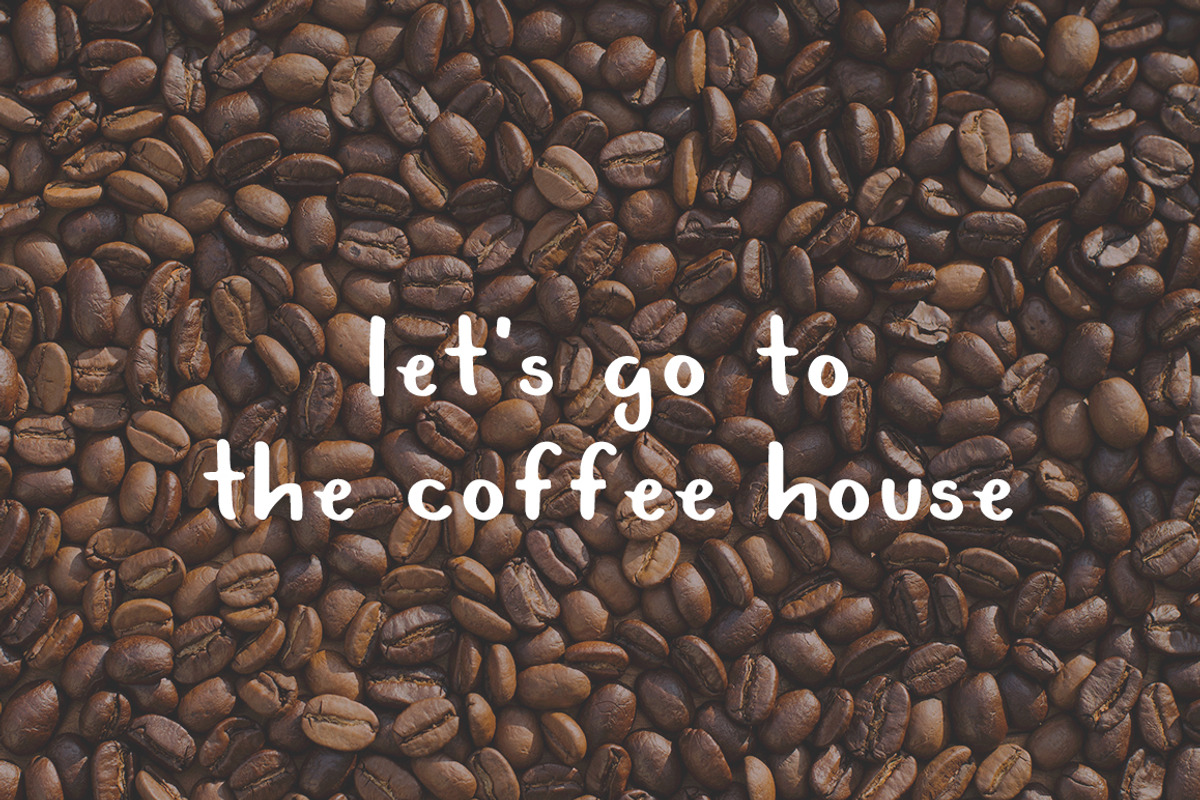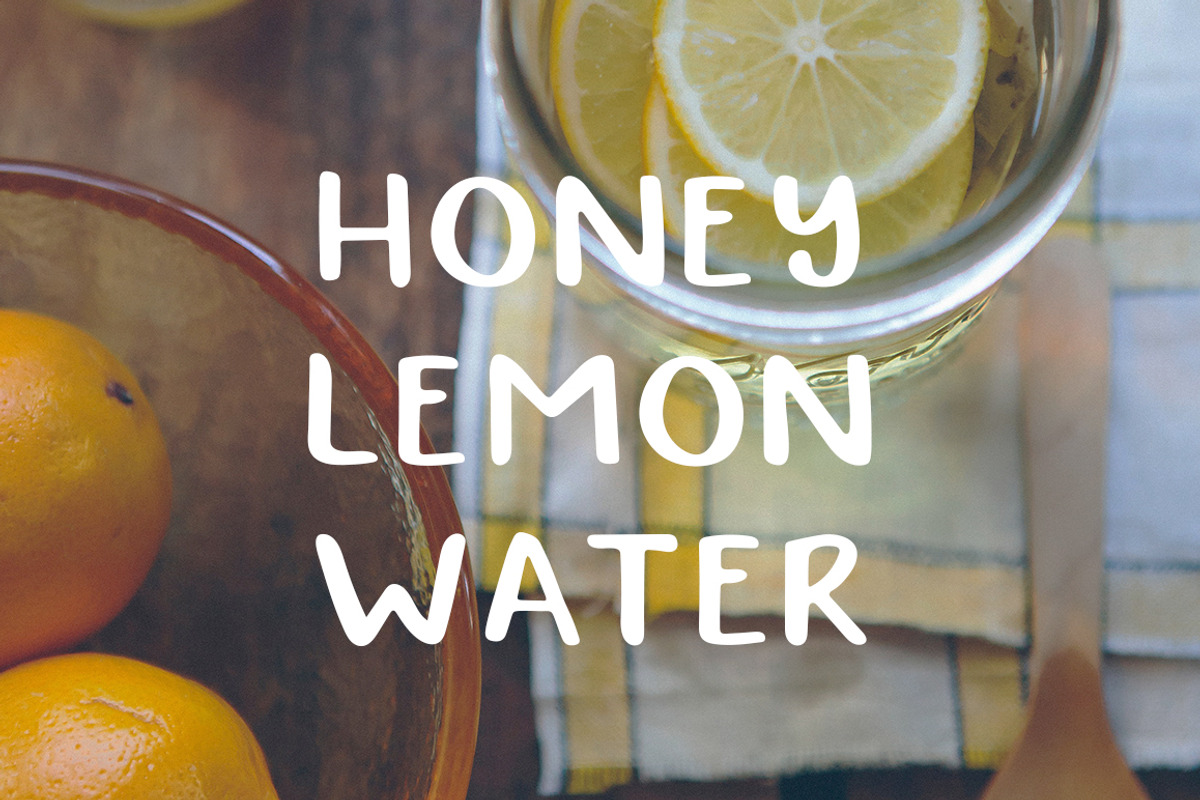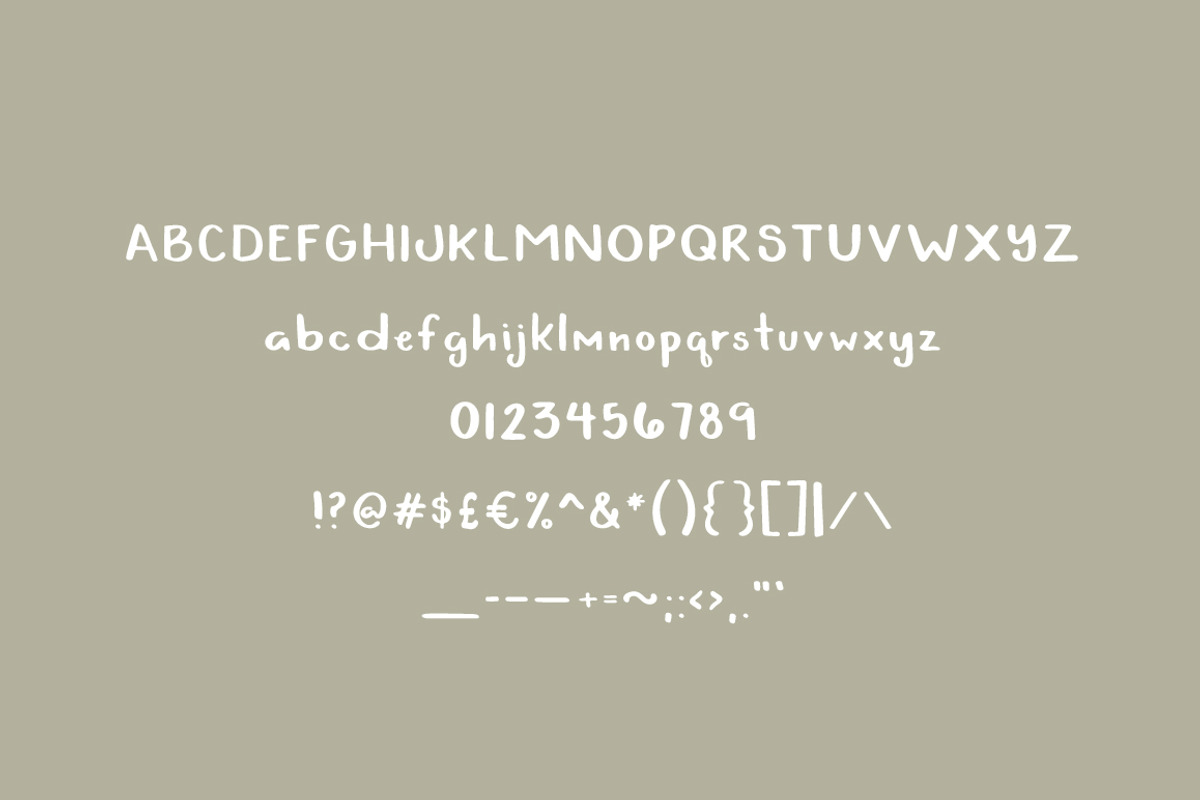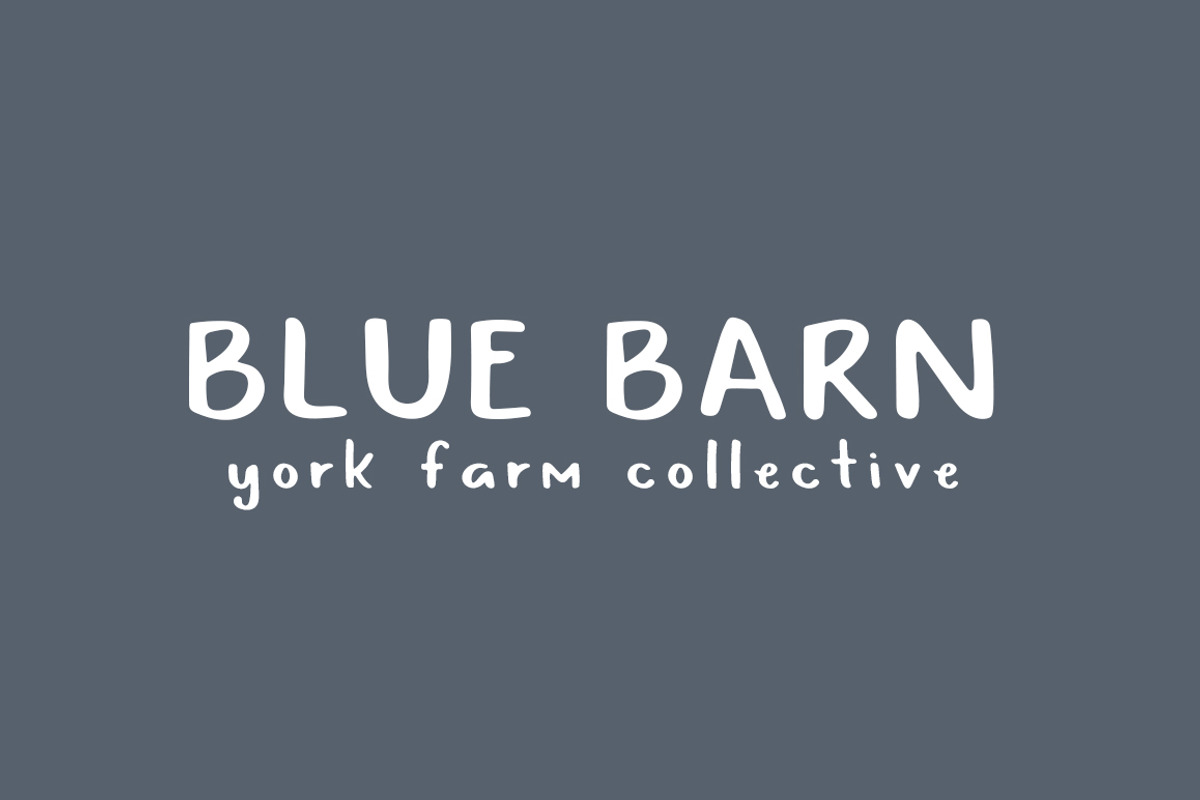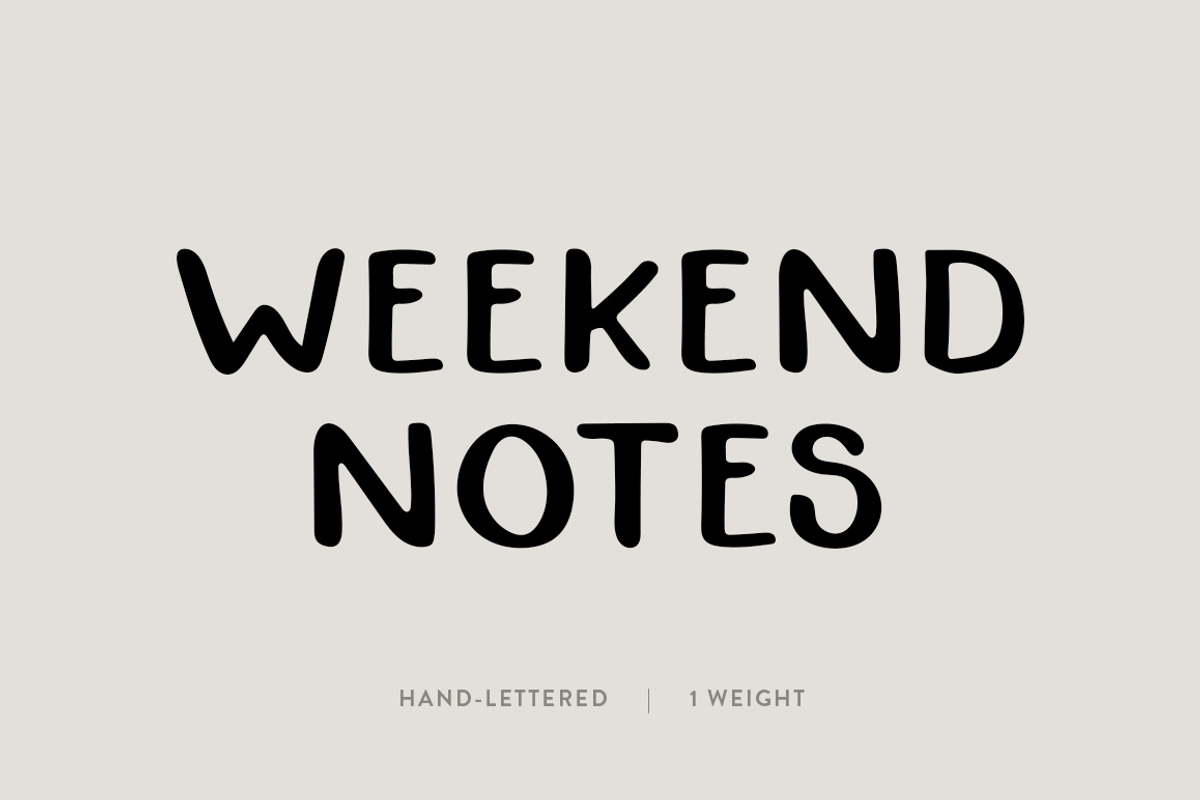
Weekend Notes: A Hand-Lettered Font
Weekend Notes: A Hand-Lettered Font by Britt Fabello is a font selected for branding, posters, packaging, typography.
Why Weekend Notes: A Hand-Lettered Font is worth a look
Weekend Notes: A Hand-Lettered Font by Britt Fabello fits naturally into Branding, posters, packaging, typography.